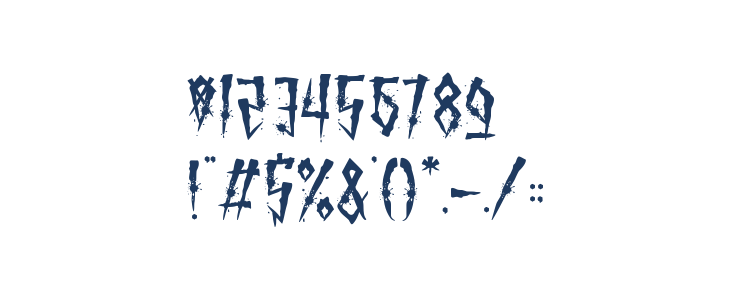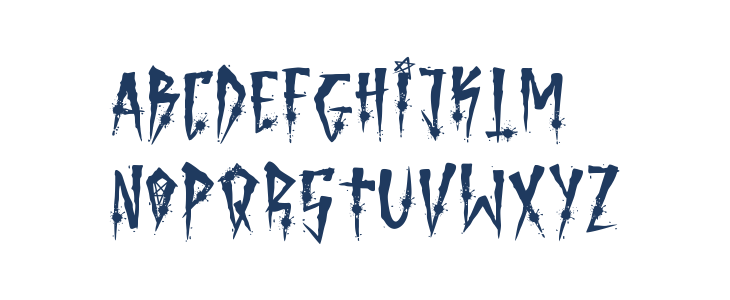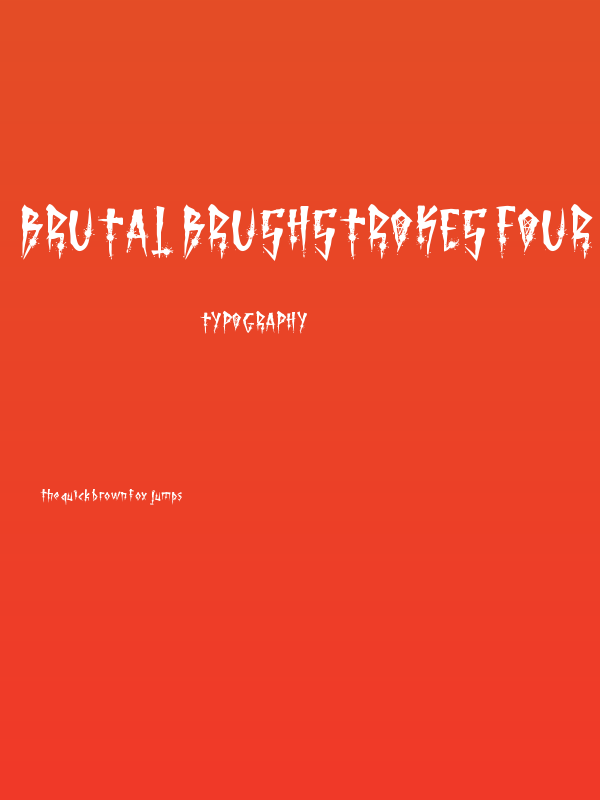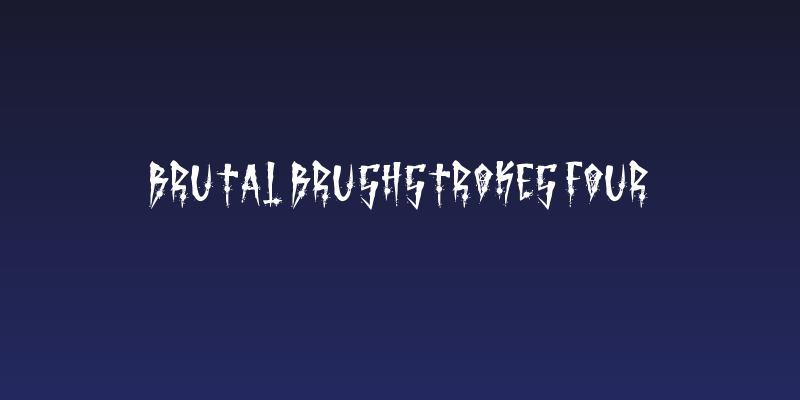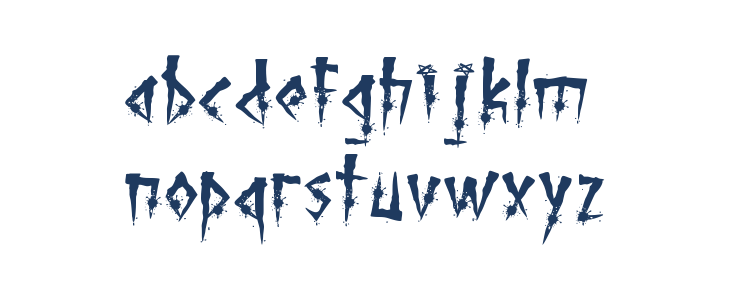
Brutal Brushstrokes Four Font
Brutal Brushstrokes Four Description
A highly expressive, jagged brushstroke font with splatter effects and irregular, sharp edges, evoking a chaotic and rebellious aesthetic. The characters are tall and narrow, with uneven line thickness and dramatic, spiky terminals.
| Overall Style | Decorative, Grunge, Urban, Edgy |
| Use Case | Headlines, Posters, Logos, Event Promotions |
| Proposed Projects | Music posters, horror movie titles, Halloween invitations, extreme sports branding, graffiti-inspired artwork. |